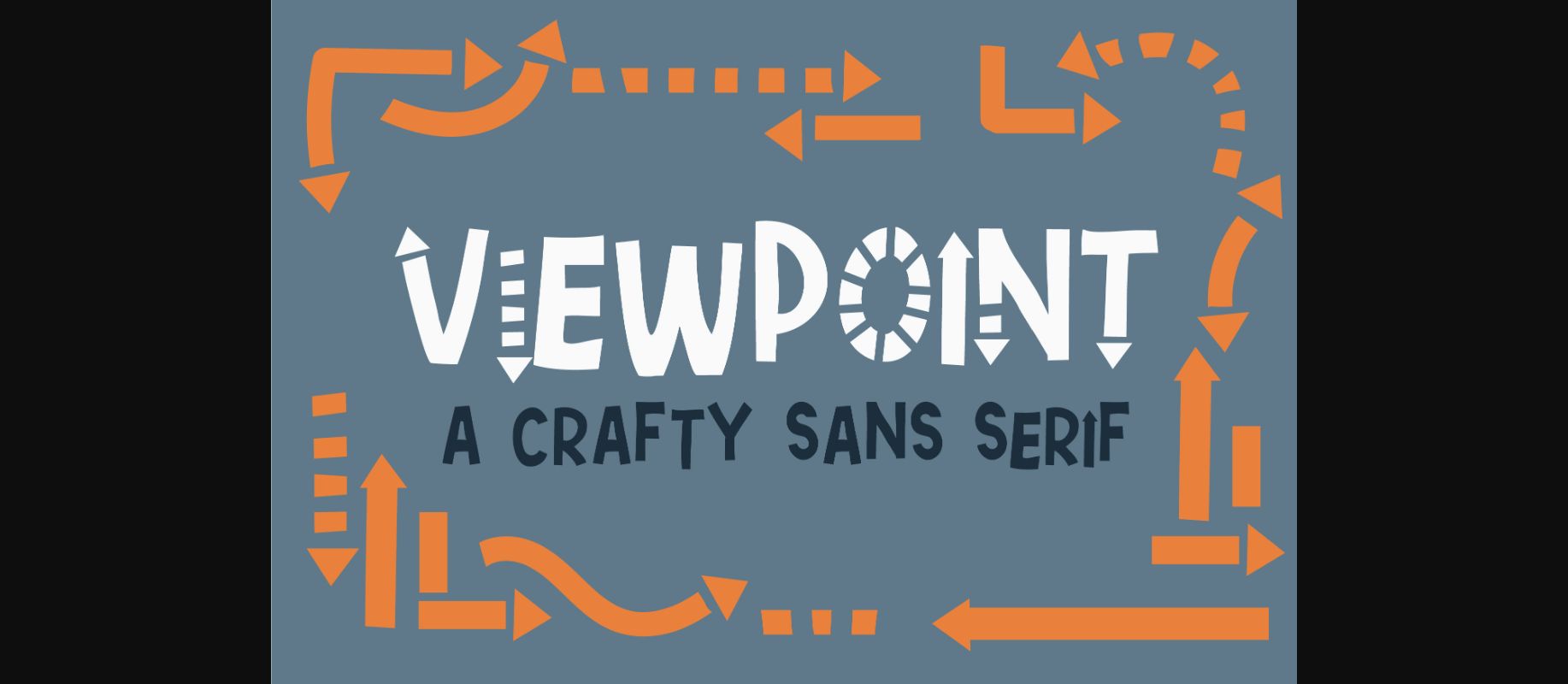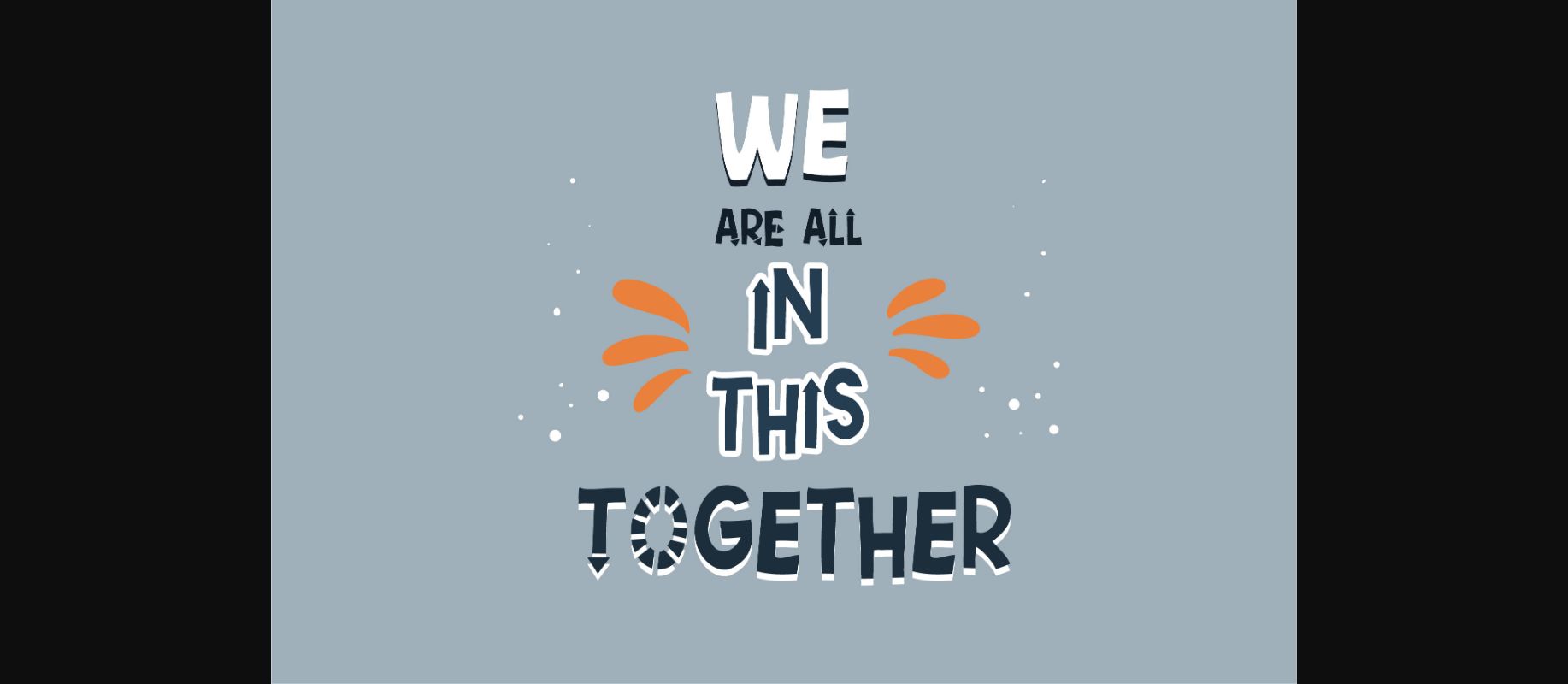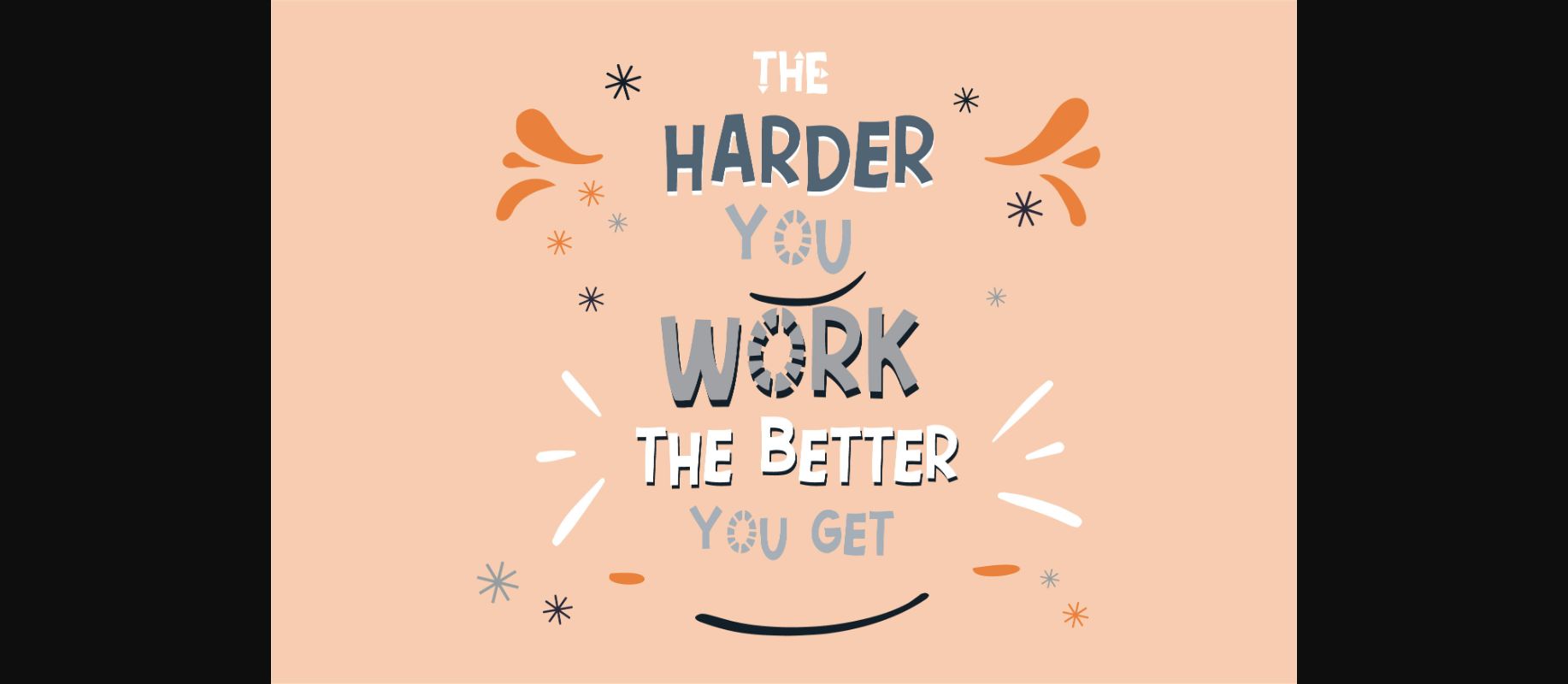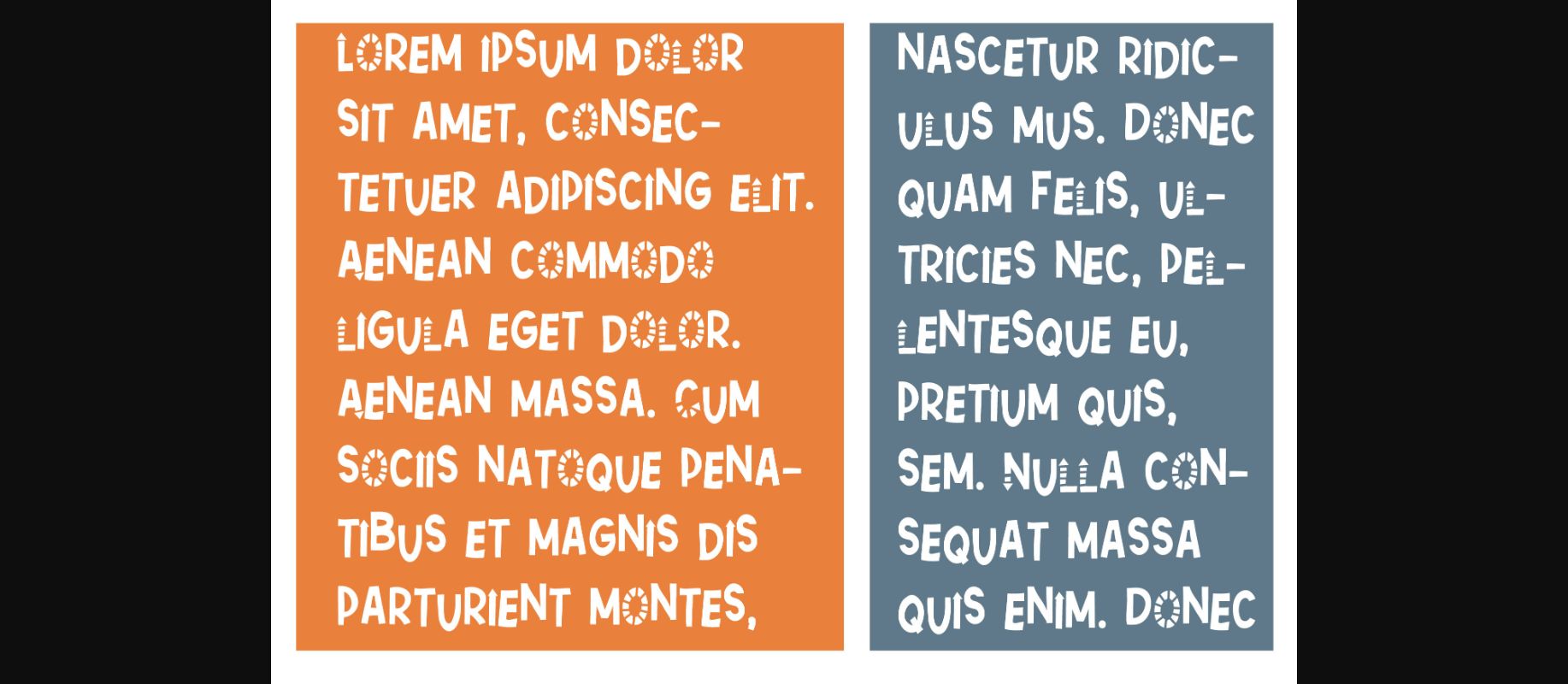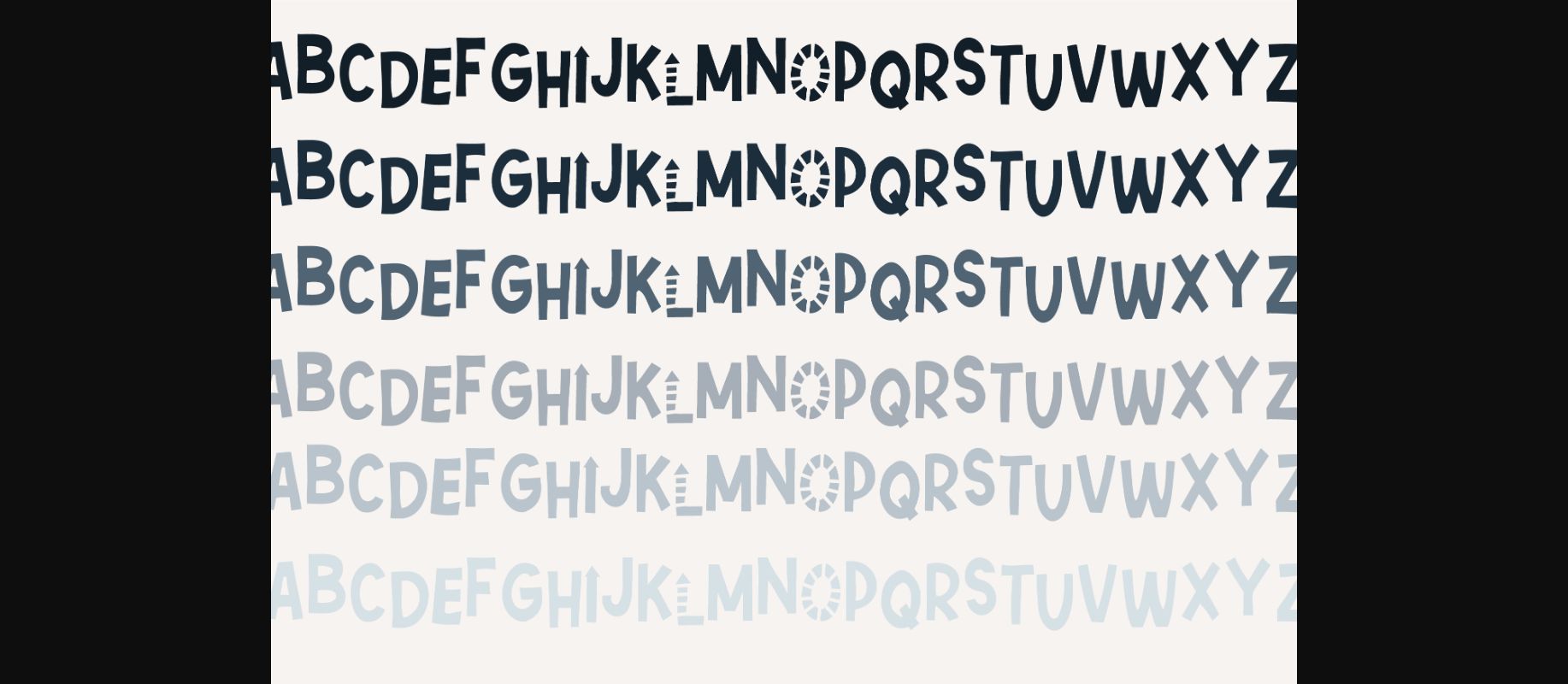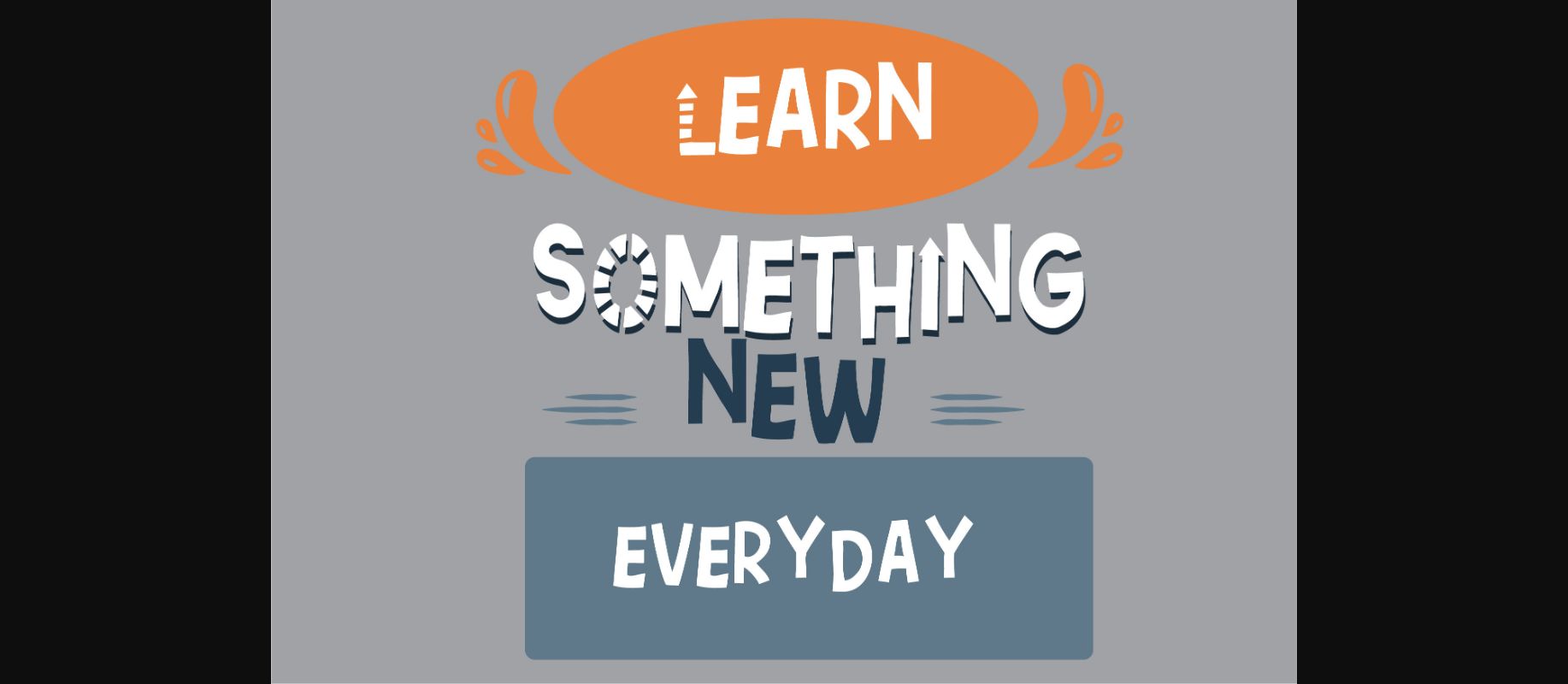
Viewpoint Font
About Viewpoint Font
This crafty decorative font has arrows throughout and a toggled baseline. Playful and youthful, Viewpoint is sure to attract anyone!